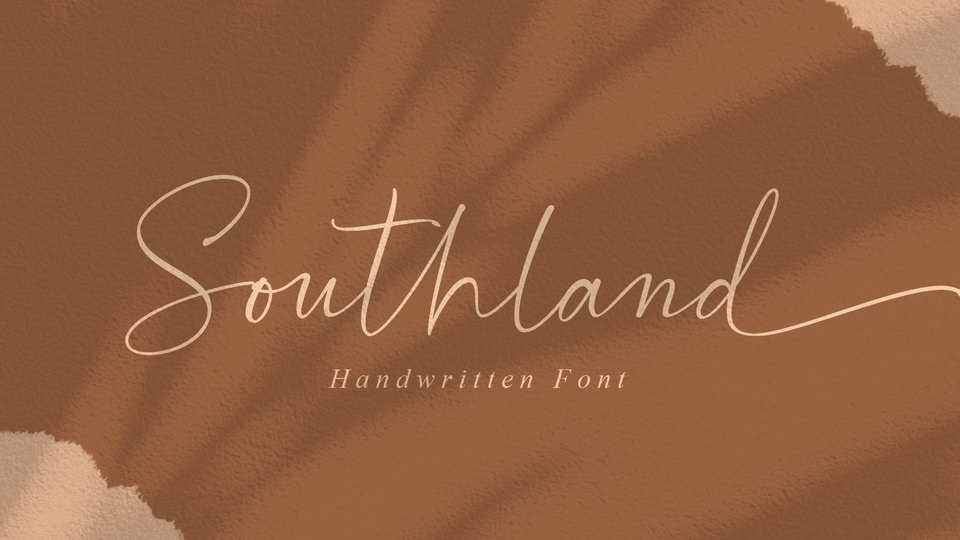
Download Southland font, a handmade calligraphy script that is made with a touch of love in every character. Southland font is perfect for logos, branding, business cards, watermarks, posters and more.
Designer: MJB Letters